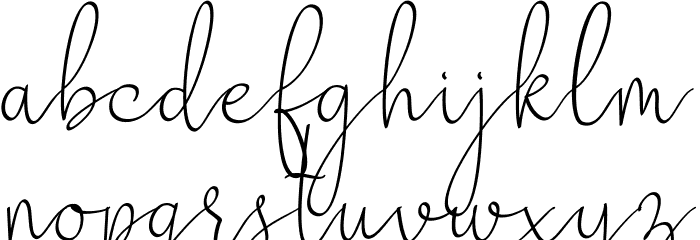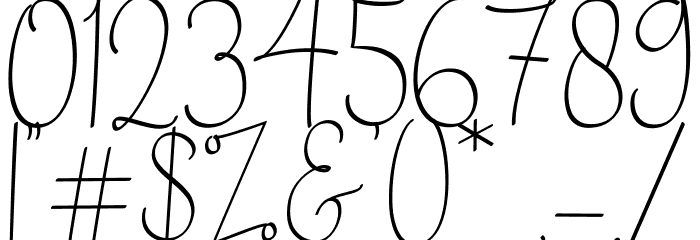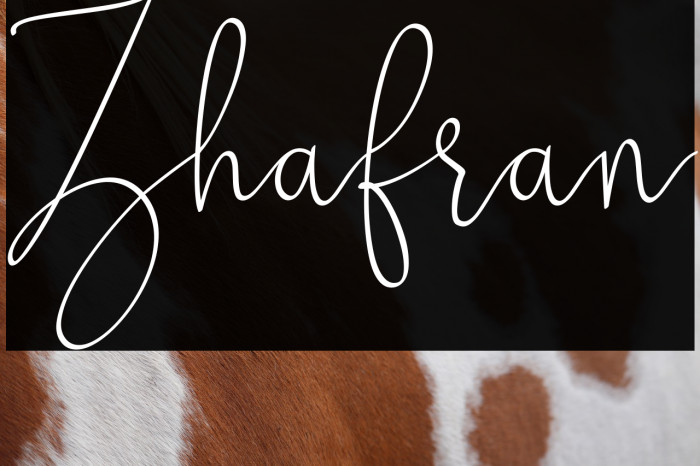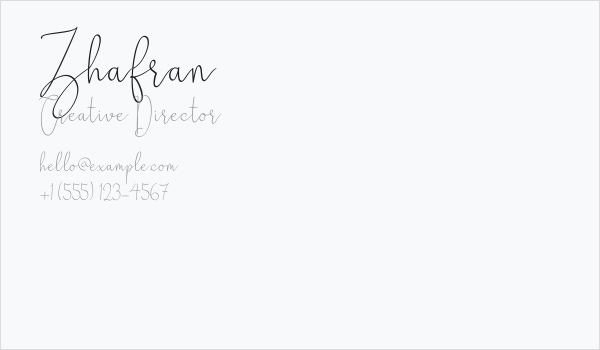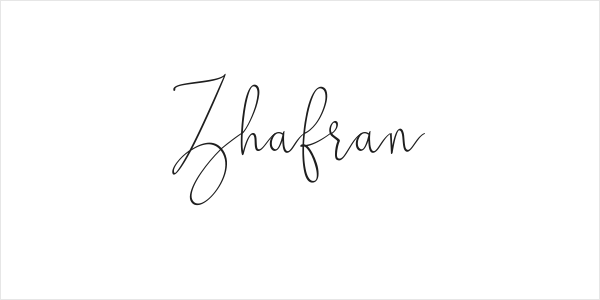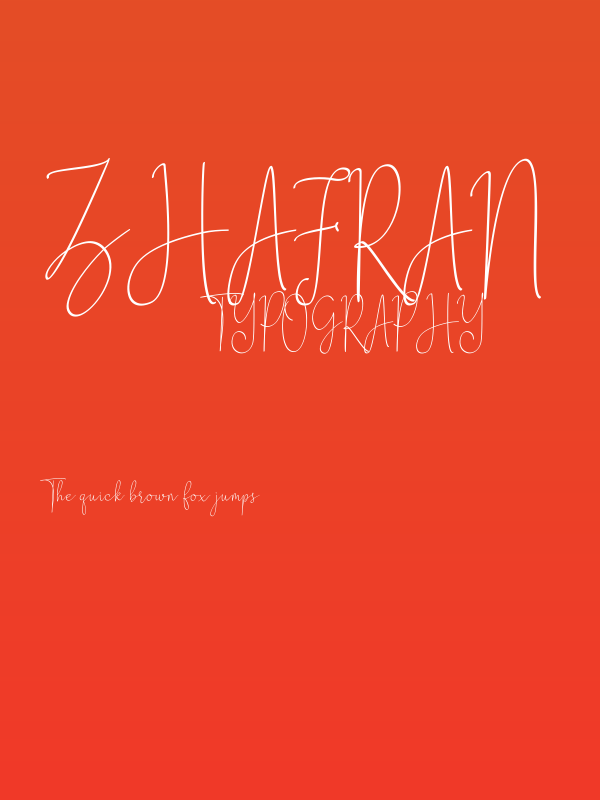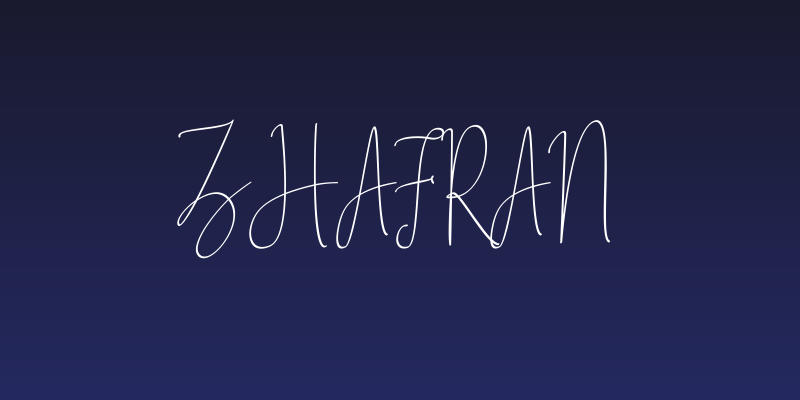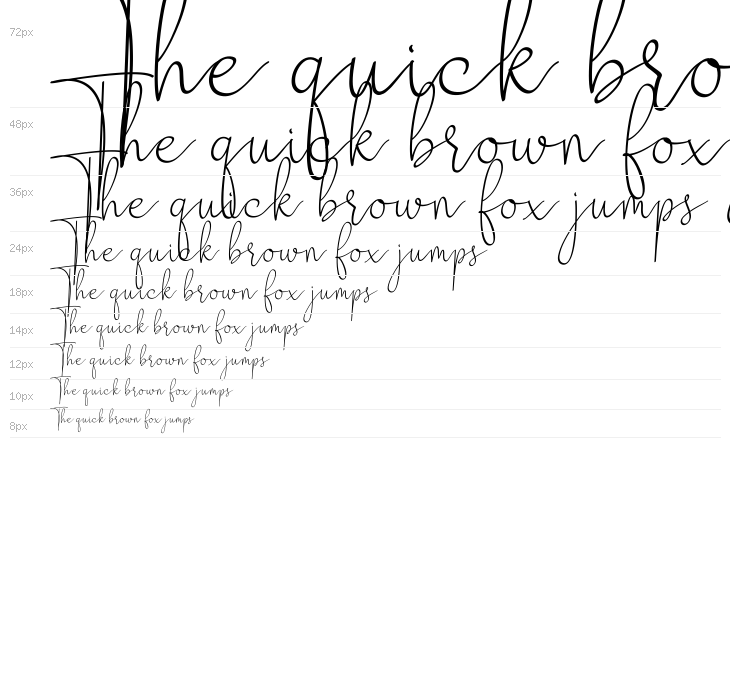
Zhafran Font
This font features an elegant and flowing script style, characterized by its thin, graceful strokes and a handwritten appearance. The uppercase letters exhibit a tall and slender form, with gentle curves and loops that add a touch of sophistication. The lowercase letters maintain a consistent flow, with some characters extending below the baseline, enhancing the font's fluidity. Numbers and special characters are designed to match the overall aesthetic, with a delicate balance between form and function. The font's airy and open design makes it suitable for projects that require a personal and artistic touch.
A graceful and flowing script font with an elegant handwritten style.
- Proposed Projects: Ideal for wedding invitations, greeting cards, personal branding, and artistic projects.
- Category: Script
- Weight: Light
- Overall Style: Elegant
- Use Case: Logos, Invitations, Artistic projects